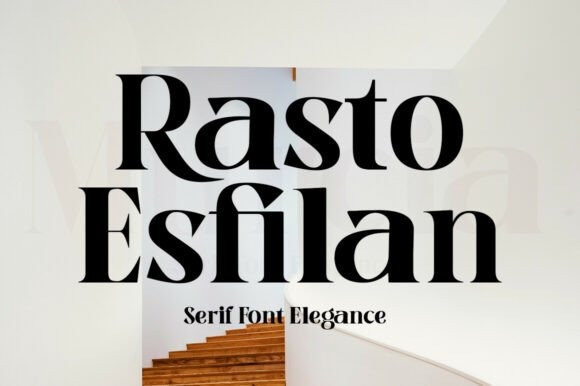
Rasto Esfilan Font
Rasto Esfilan Font is a sculptural serif display typeface that blends modern editorial polish with timeless craftsmanship. Tall proportions, dramatic high contrast, and finely flared serifs carve a confident silhouette, while knife-sharp joins and generous curves add couture drama. Inside each letter, clever wedge cuts and smooth teardrop terminals create rhythm and sparkle; refined ligatures keep long words flowing for headlines and logotypes. This luxury font excels in magazine covers, fashion branding, packaging, posters, and elegant website hero text. Set it large for statement titles, pair with a clean sans for copy, and let the lettering deliver premium style with impeccable readability.